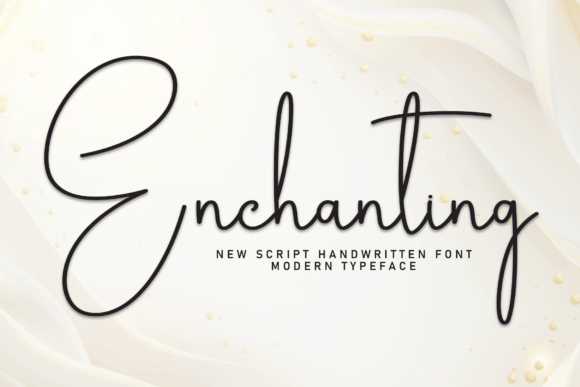
The Perfect Blend of Whimsy and Sophistication: Introducing Enchanting Font
Have you ever stared at a blank page, trying to bring your creative vision to life, only to be stuck in a sea of bland fonts? We’ve all been there – the frustration of wanting to convey a specific mood or atmosphere, but struggling to find the right words to express it. That’s where Enchanting Font comes in – a playful, personable handwritten display font that’s guaranteed to add a dash of magic to your designs.
This charming font is more than just a pretty face; it’s a versatile tool that’s perfect for crafting unforgettable wedding invitations, heartfelt cards, or any design project that needs a sprinkle of jovial touch. For designers, Enchanting Font offers a unique opportunity to elevate their creative journey with a beautifully sweet and friendly font that seamlessly blends whimsy with sophistication.
Key Features of Enchanting Font
- Unique Characteristics: Enchanting Font features a unique blend of whimsical and elegant elements, with intricate details and flourishes that add a touch of magic to any design.
- Style Variations: Enchanting Font comes in a range of styles, from casual to formal, allowing designers to choose the perfect look for their project.
Enchanting Font Review
Overall, I’m quite pleased with the Enchanting Font. It’s a beautiful, elegant script font that’s perfect for adding a touch of whimsy to any design project.
Here are some things that I think work well: ✨
- Legibility: The font is surprisingly easy to read, even at small sizes.
- Character variation: Each letter is carefully crafted with unique flair and personality.
- Font weight limitations: The font only comes in two weights (regular and bold), which may limit its use in certain design contexts.
Overall, I think the Enchanting Font is a great addition to any designer’s toolkit. While it may have some limitations, its unique charm and character make it a great choice for a wide range of projects.
The Enchanting Font is perfect for:
- Magazine and newspaper headlines
- Web design and branding
For the best results, use the Enchanting Font in conjunction with bold colors and creative layouts.
Alternatives to Enchanting Font
Lato is a modern sans-serif font that is perfect for creating a clean and minimalist design. It is ideal for use in digital products, such as websites and mobile applications. Compared to Enchanting Font, Lato is more straightforward and less ornate, making it suitable for modern and tech-savvy audiences.
Playfair Display is an elegant and luxurious serif font that is ideal for use in high-end branding, advertising, and publishing. It is perfect for creating a sophisticated and refined look. Compared to Enchanting Font, Playfair Display is more formal and less whimsical, making it suitable for luxury brands and high-end design projects.
Great Vibes is a modern script font that is perfect for creating a friendly and approachable design. It is ideal for use in branding, advertising, and packaging. Compared to Enchanting Font, Great Vibes is more casual and less formal, making it suitable for young and creative brands.